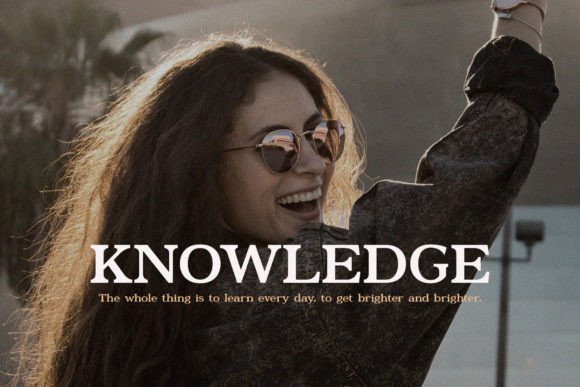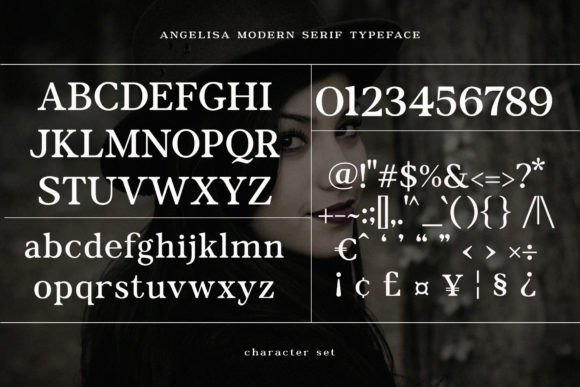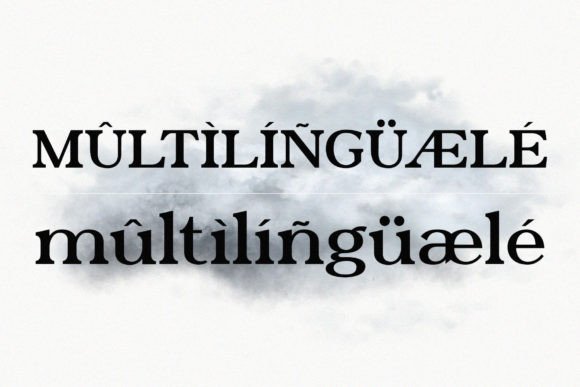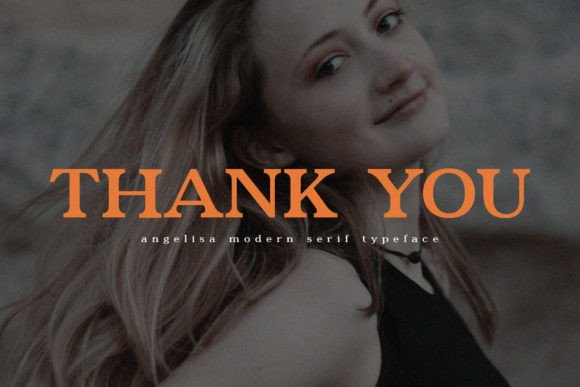
Discover the Elegance of Angelisa: A Modern Serif Typeface
I’ll never forget the moment I stumbled upon the perfect font for a client’s luxury brand project. I had been searching for hours, trying out different combinations, but nothing seemed to fit the bill. That was until I discovered Angelisa, a classy, modern serif font that instantly elevated the design. In this article, I’ll share my experience with Angelisa, its features, and how to make the most of this beautiful typeface.
First Impressions: What I Love About Angelisa
Angelisa is more than just a font – it’s a design statement. Here’s what I love about it:
- ✨ Elegant and Modern: Angelisa brings a touch of sophistication to any design, making it perfect for luxury brands, magazines, and high-end websites.
- ✅ Versatile: This font works seamlessly across various platforms, from digital media to print.
- 💡 OpenType Features: Angelisa comes with a range of OpenType features, including stylistic alternates, ligatures, and glyphs, giving you creative control over your design.
No font is perfect, and Angelisa is no exception. Here are a few things to keep in mind:
- 🤔 Limited Contrast: While Angelisa is designed to be elegant, it may not offer enough contrast for certain design applications, such as body text.
- ⚠️ Glyph Limitations: Some users have reported that the font’s glyph set could be more extensive. However, the existing glyphs are well-designed and versatile.
The Story Behind Angelisa: Designer Inspiration
While the true story behind Angelisa’s creation may be unknown, it’s easy to imagine that the designer was inspired by the world of luxury and elegance. Perhaps they drew inspiration from high-end fashion, architecture, or fine art. Whatever the inspiration, Angelisa is a testament to the power of typography in elevating design.
| What is Angelisa best suited for? | Angelisa is ideal for luxury brands, magazines, high-end websites, and any design project requiring elegance and sophistication. |
| Is Angelisa a web-friendly font? | Yes, Angelisa is optimized for digital use and works well on various devices and browsers. |
| Can I use Angelisa with other fonts? | Absolutely! Angelisa pairs well with a range of fonts. Experiment with different combinations to find the perfect match for your design. |
With its elegant design, versatility, and range of OpenType features, Angelisa is an excellent addition to any designer’s toolkit. Whether you’re working on a luxury brand project or simply want to elevate your design game, Angelisa is definitely worth exploring.